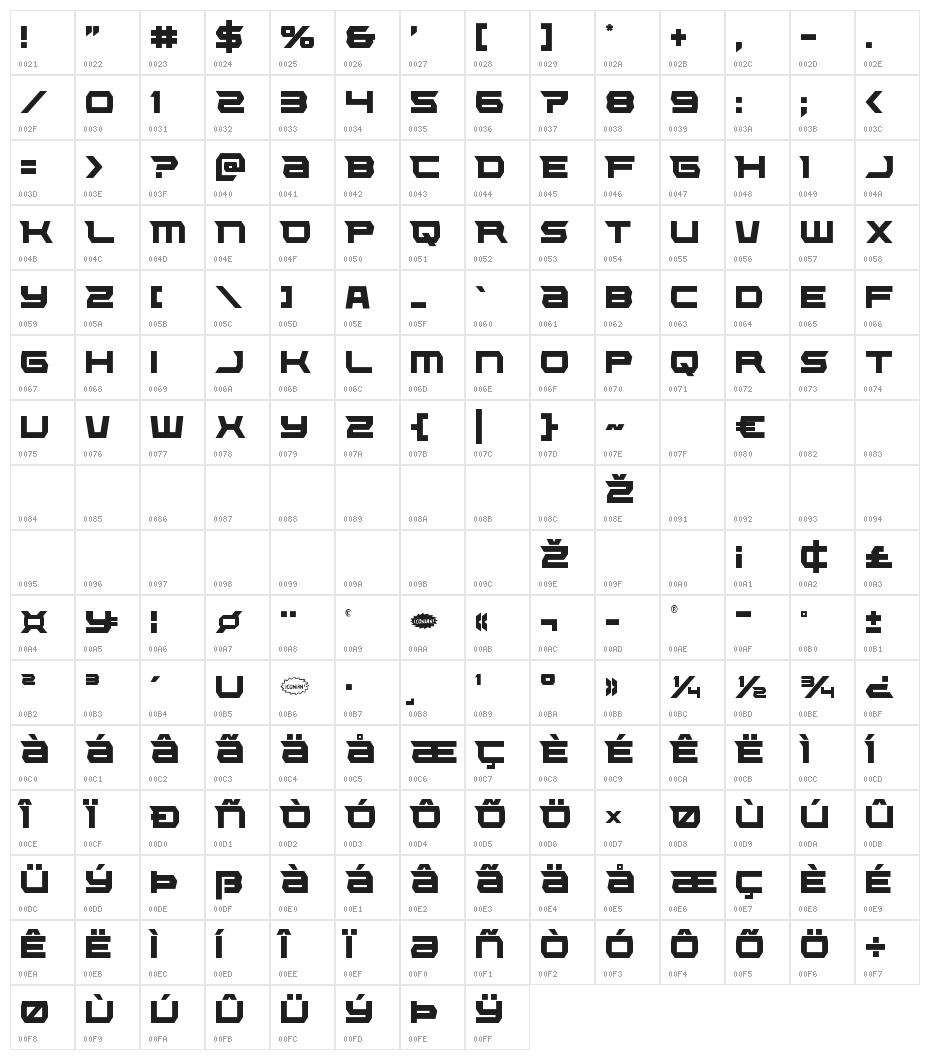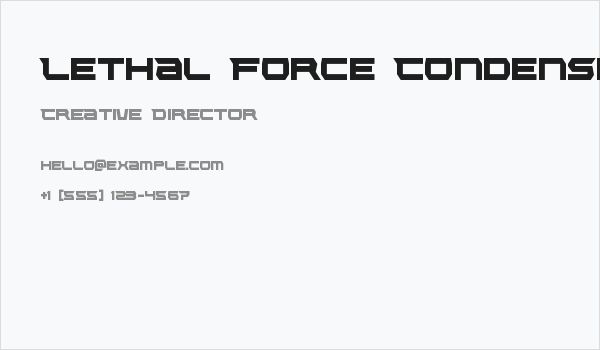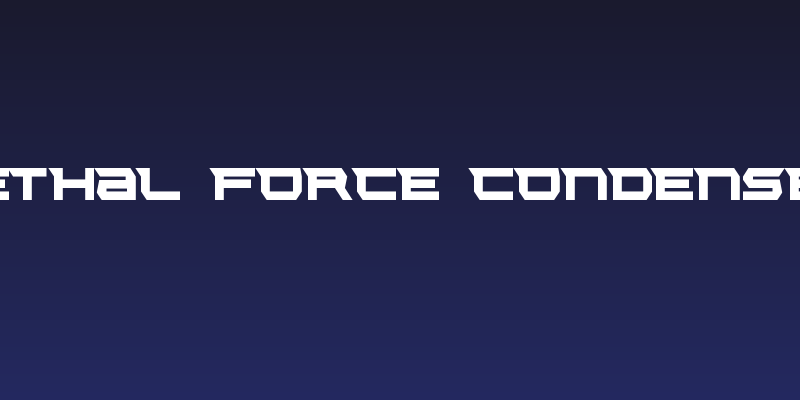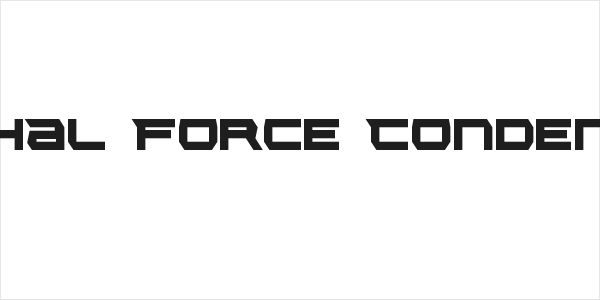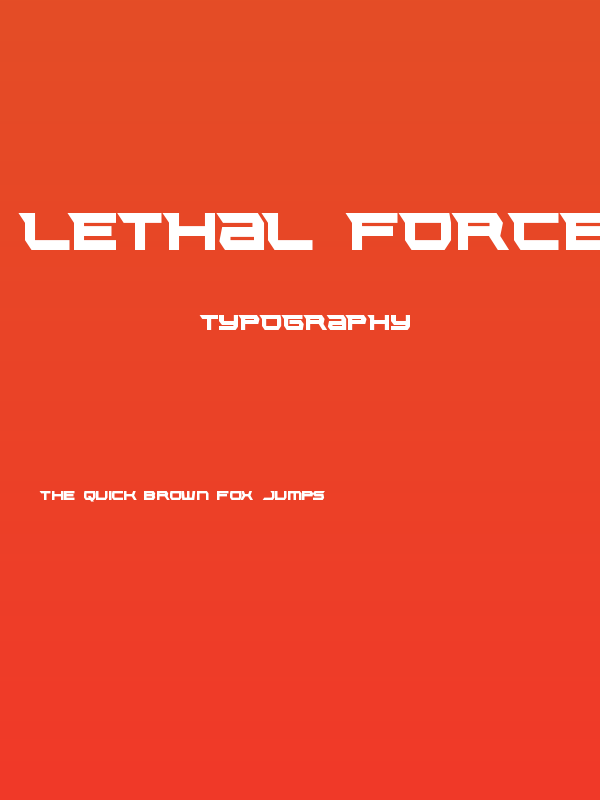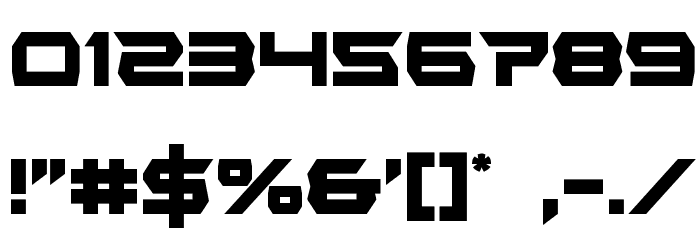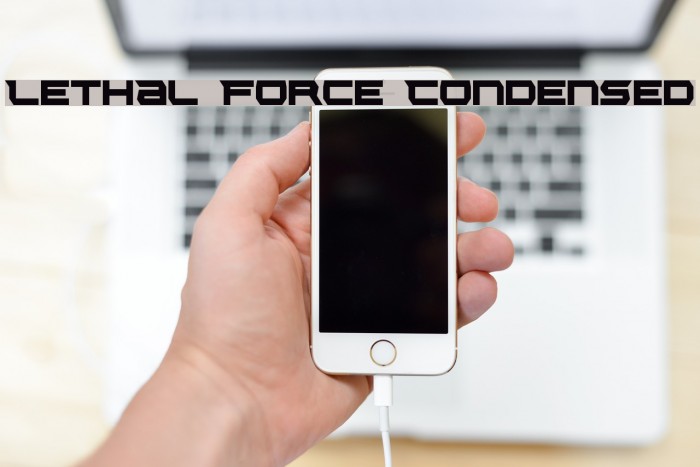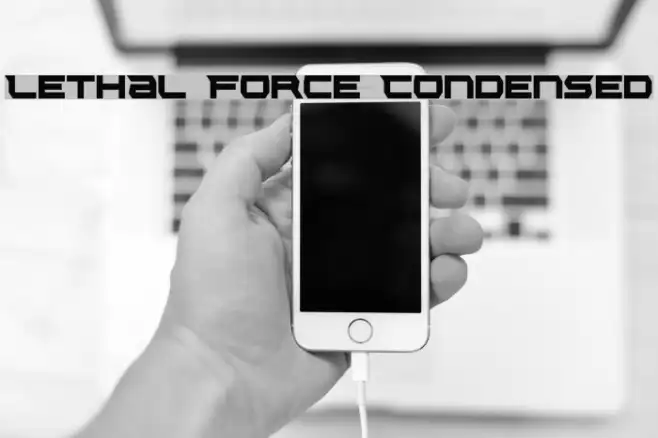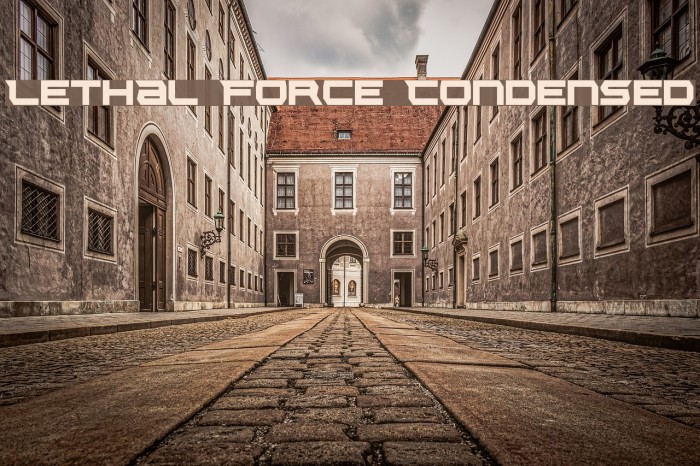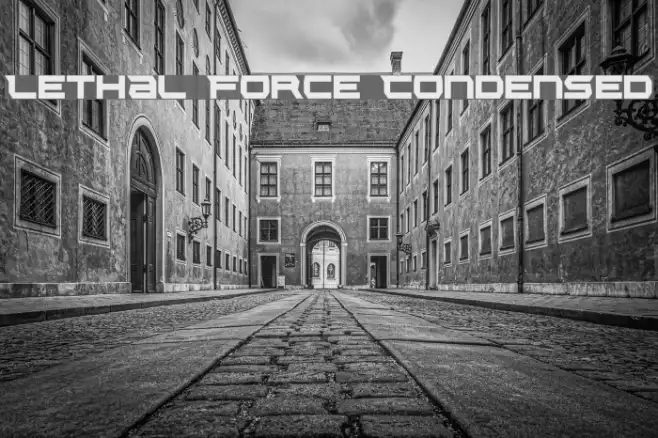
Lethal Force Condensed Font
Lethal Force Condensed Description
This font features a bold, geometric design with sharp, angular edges and a condensed structure. The characters are uniform in height, creating a cohesive and compact appearance. The uppercase and lowercase letters maintain a consistent style, with a futuristic and industrial feel. The numerals and special characters follow the same design principles, ensuring a seamless integration with the alphabet. The font's strong presence and unique style make it suitable for attention-grabbing designs.
LETHAL-FORCE-CONDENSED UPPERCASE
LETHAL-FORCE-CONDENSED LOWERCASE
LETHAL-FORCE-CONDENSED OTHER CHARS
| Proposed Projects | Ideal for sci-fi themed projects, video game titles, posters, and branding that requires a modern and edgy look. |